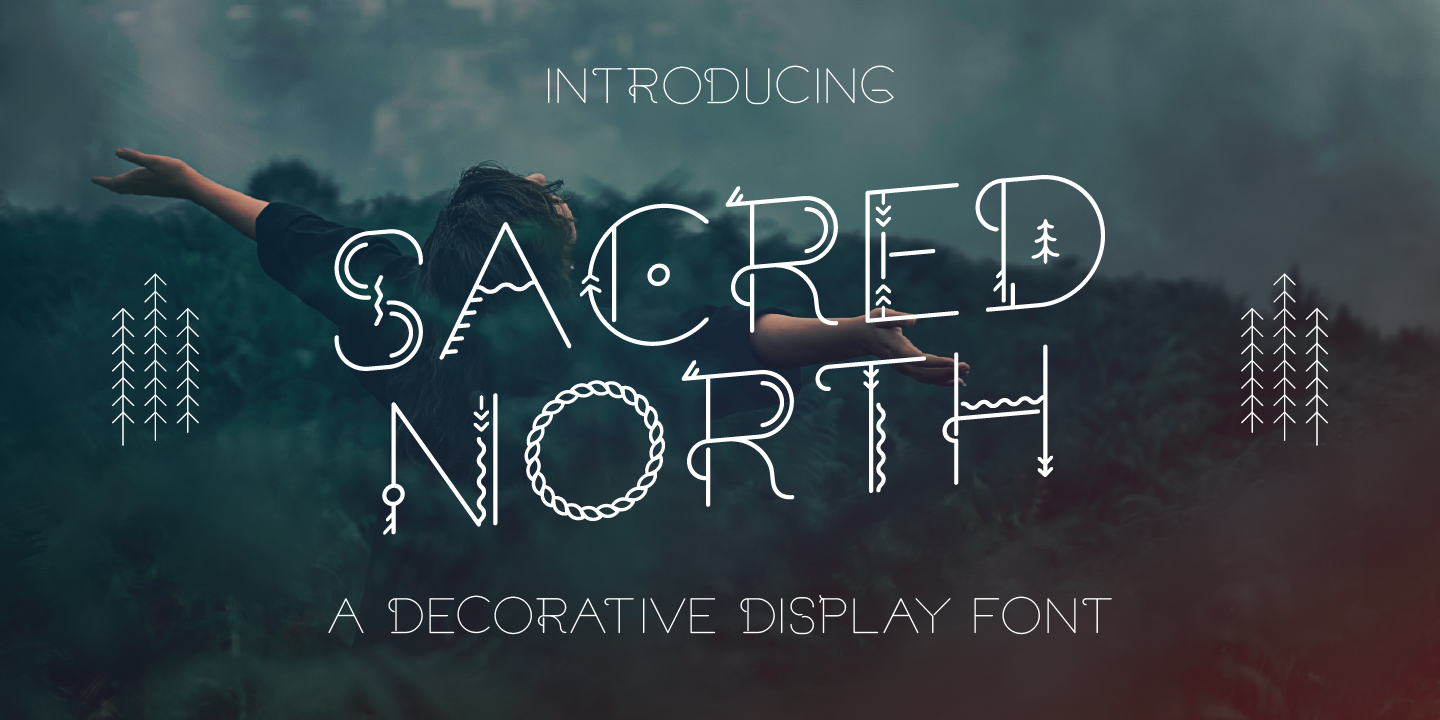
Sacred North Font is perfect for Nordic-inspired branding, Scandinavian design projects, winter sports promotions, arctic expedition materials, spiritual retreat centers, meditation app interfaces, wellness sanctuary signage, nature conservation campaigns, mountain lodge marketing, and any project requiring sacred tranquility with Nordic mysticism and pristine natural elegance.
What makes Sacred North Font exciting is its spiritual serenity and Nordic mystique that channels the profound wisdom of ancient Scandinavian traditions and arctic landscapes. The typeface features clean, runic-inspired letterforms with sacred geometric elements that evoke the peaceful solitude of snow-covered forests and the spiritual depth of Nordic mythology. Its transcendent character design speaks to audiences who seek inner peace, spiritual connection, and the pure beauty of untouched wilderness, making it perfect for brands that want to communicate mindfulness, authenticity, and the sacred harmony found in Nordic culture and arctic nature.
Sacred North Font family includes light, regular, and bold weights with complete character sets featuring uppercase and lowercase letters, Nordic-inspired numerals, essential punctuation marks, and sacred geometric elements. The typeface incorporates subtle runic influences and minimalist design principles that enhance its spiritual appearance while maintaining excellent readability across all mindfulness applications and contemporary design projects.
Whether you're creating wellness brand identity, designing spiritual retreat materials, or developing Nordic-inspired marketing campaigns, Sacred North Font Free Download provides the perfect typographic foundation that honors Scandinavian heritage and spiritual wisdom. The font's sacred appeal and Nordic character make it particularly effective for meditation centers, wellness practitioners, and nature-focused brands. Its mystical aesthetics translate beautifully across app interfaces, retreat signage, and digital platforms, ensuring your brand communicates the kind of spiritual authenticity and Nordic tranquility that resonates with seekers of inner peace and lovers of Scandinavian culture.